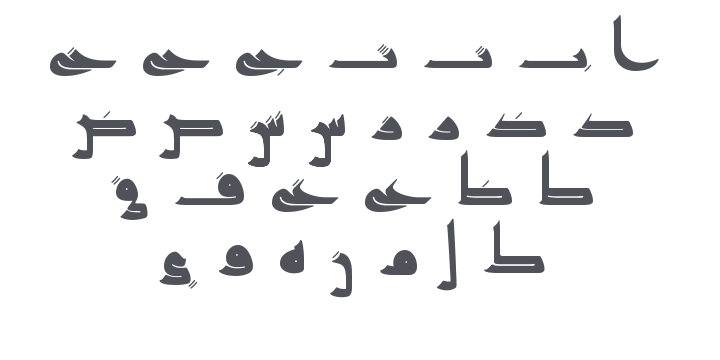
Raqq Font
by Khaled Hosny
Raqq Font
About Raqq
Raqq (رَقّ) is a manuscript Kufic typeface that intends to revive (as faithfully as possible) the style of Kufic script used in writing the Qur’an in the third century AH. Raqq is Arabic for parchment, on which early Qur’ans were written.